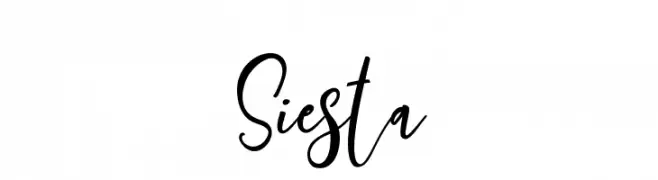
A bold, geometric font with strong lines and uniform height.
A bold, rough-textured font with a vintage, handcrafted feel.
A flowing, cursive script with a handwritten aesthetic.
A dynamic and elegant script font with fluid, decorative letterforms.
A stylish and elegant script font with flowing, cursive strokes.
A whimsical font with characters integrated into each letter, perfect for playful designs.
A bold, decorative font with floral motifs encasing each uppercase letter.